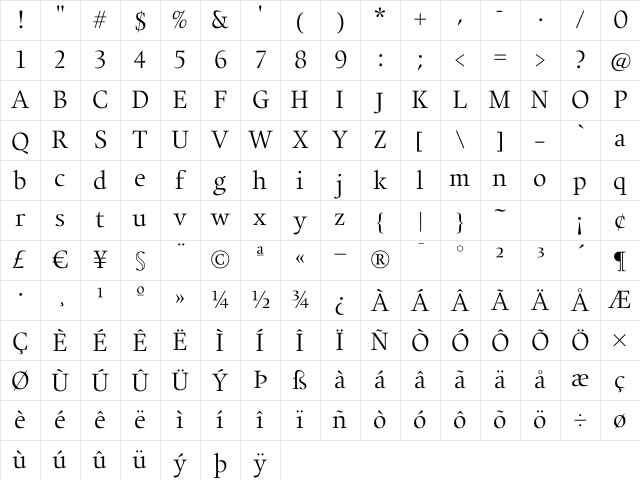
Alias UnionRegular Regular
Design Context for Alias UnionRegular
Alias UnionRegular is a composed and adaptable typeface that performs quietly and consistently across a wide range of design contexts.